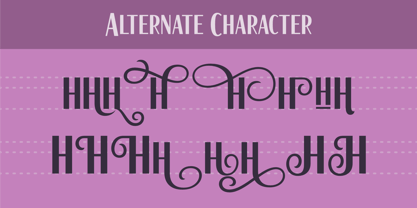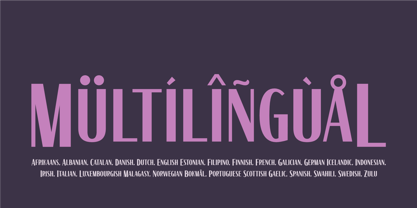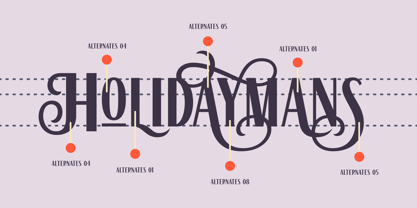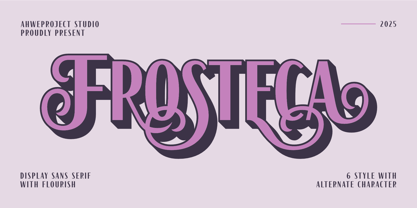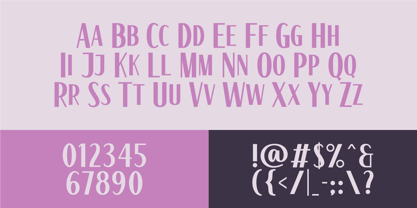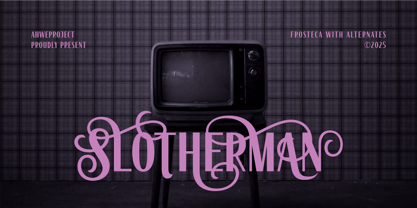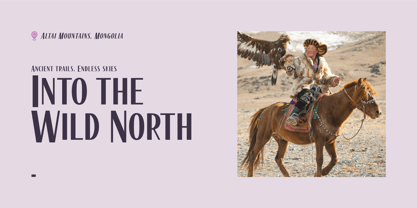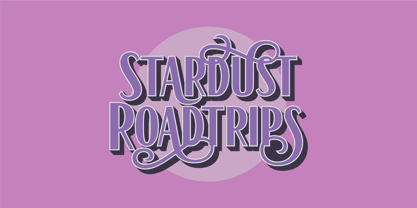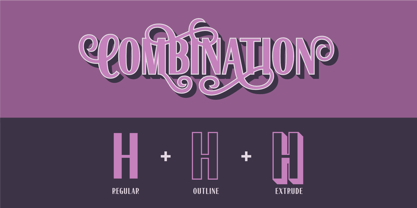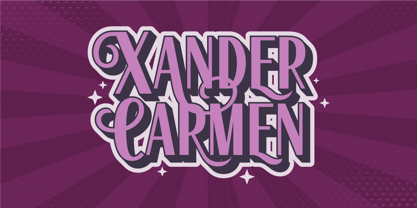
Frosteca
by ahweproject
The Frosteca Font Family was designed by Dida Ahluddin and published by ahweproject. Frosteca contains 6 styles and family package options.
Frosteca is a bold and artistic display font that combines clean sans serif structure with beautiful flourish alternates. Designed to make your typography stand out, Frosteca is perfect for any design that needs a touch of elegance and creativity. This font is ideal for logos, branding, headlines, packaging, posters, merchandise, and more. With 6 different styles and a wide range of alternate characters, you can easily mix and match to create unique and eye-catching designs. Features: -- Uppercase & lowercase -- Numbers and punctuation -- Multilingual -- Alternates -- PUA encoded We strongly recommend using applications that support Opentype Features and Glyphs panels such as Adobe Apps and Corel Draw. So you can see and access all the variations of Glyphs. Happy Design!
Designers: Dida Ahluddin
Publisher: ahweproject
Foundry: ahweproject
Design Owner: ahweproject